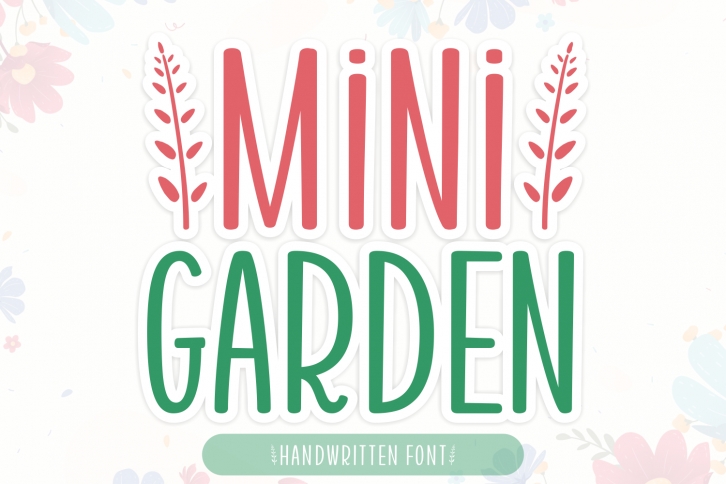
Mini Garden is a simple, neat and adaptable handwritten font. No matter the topic, this font will be an incredible asset to your fonts’ library, as it has the potential to elevate any creation.Â